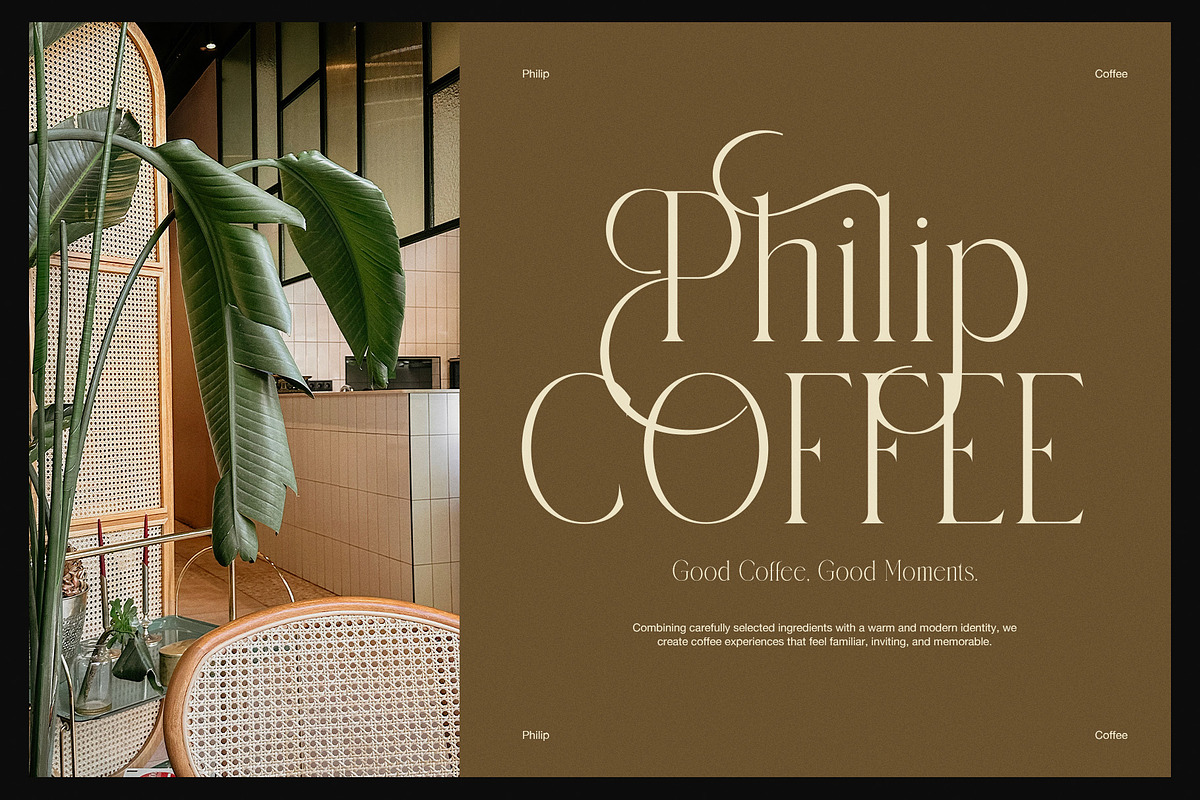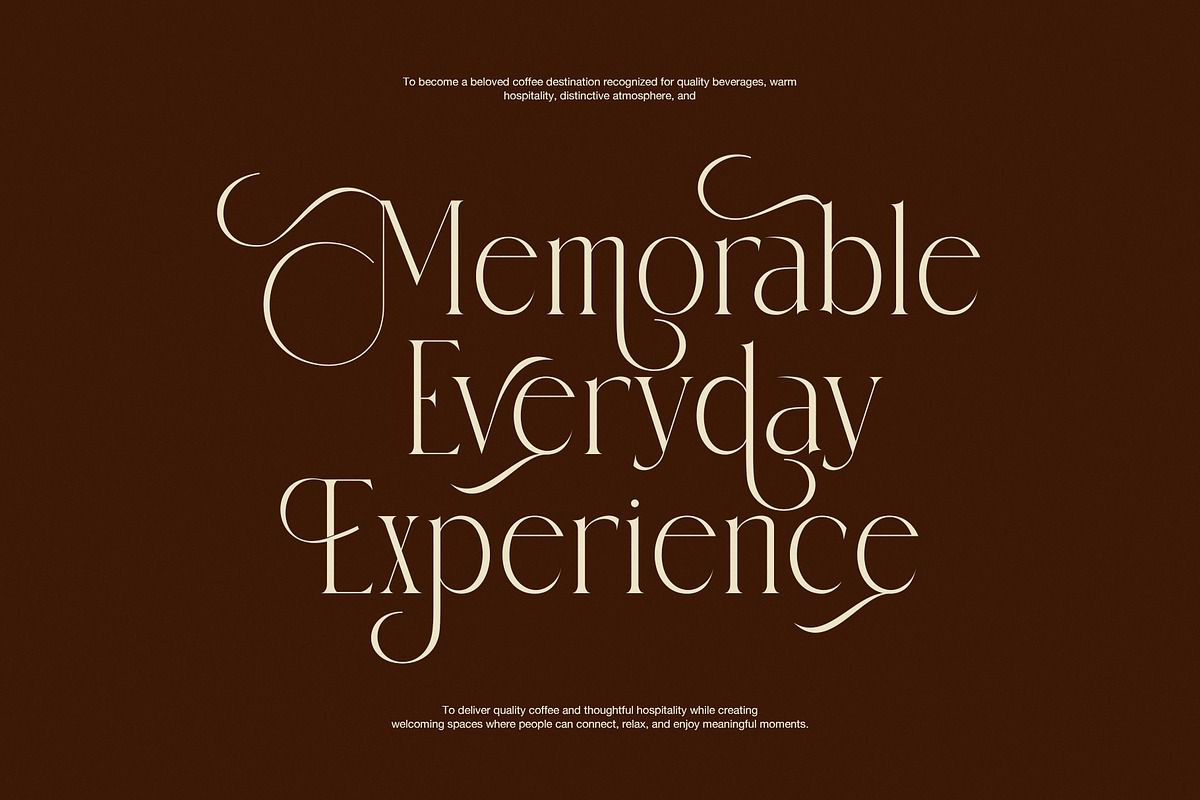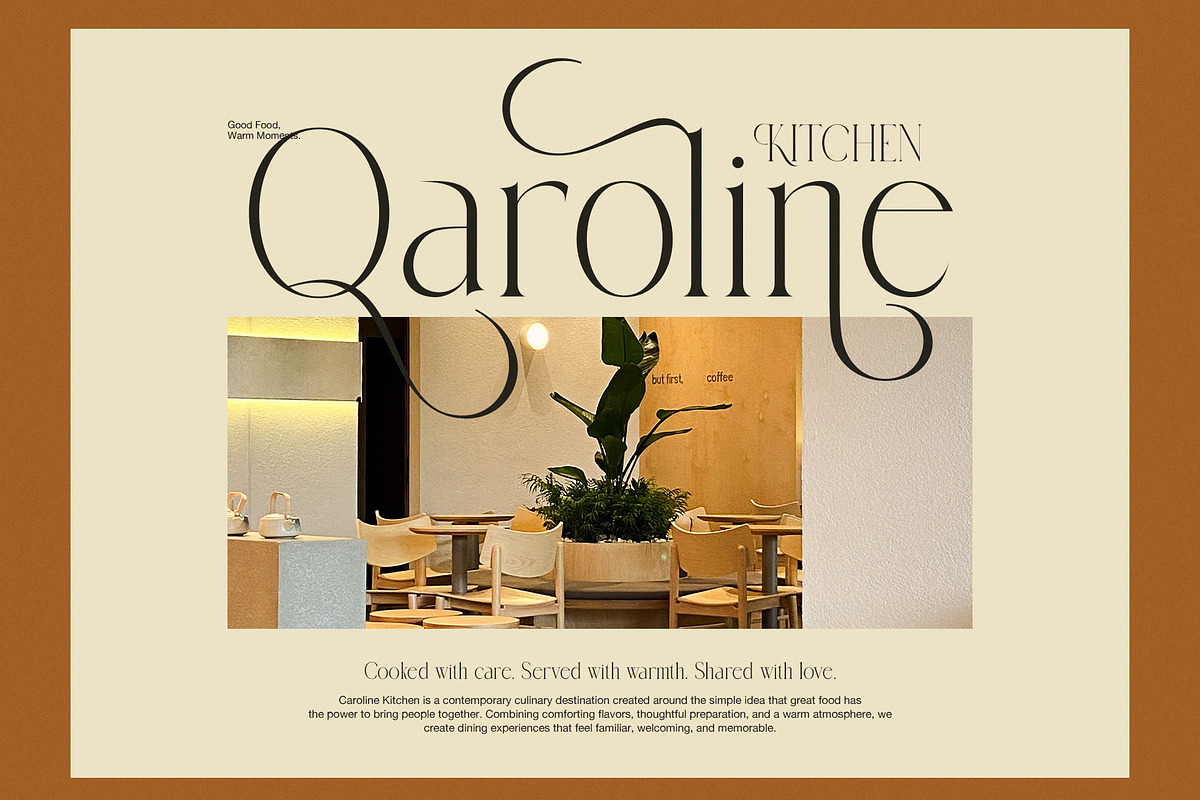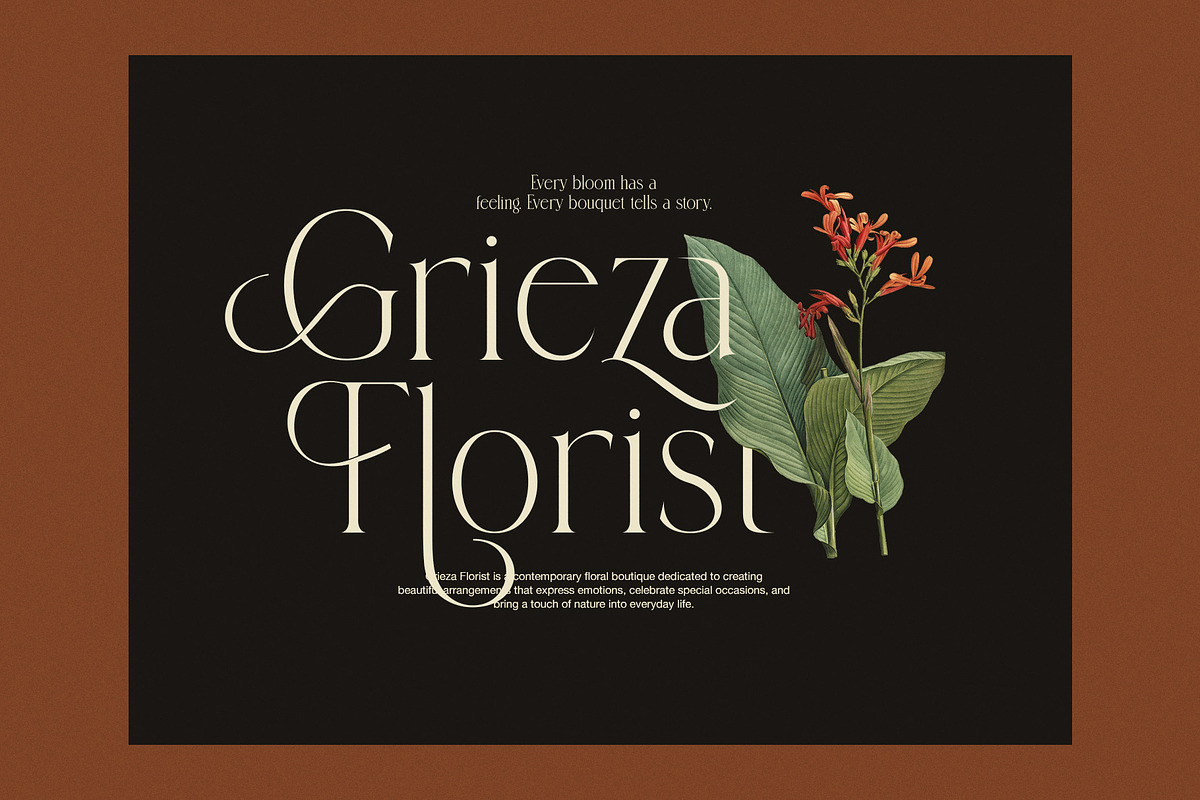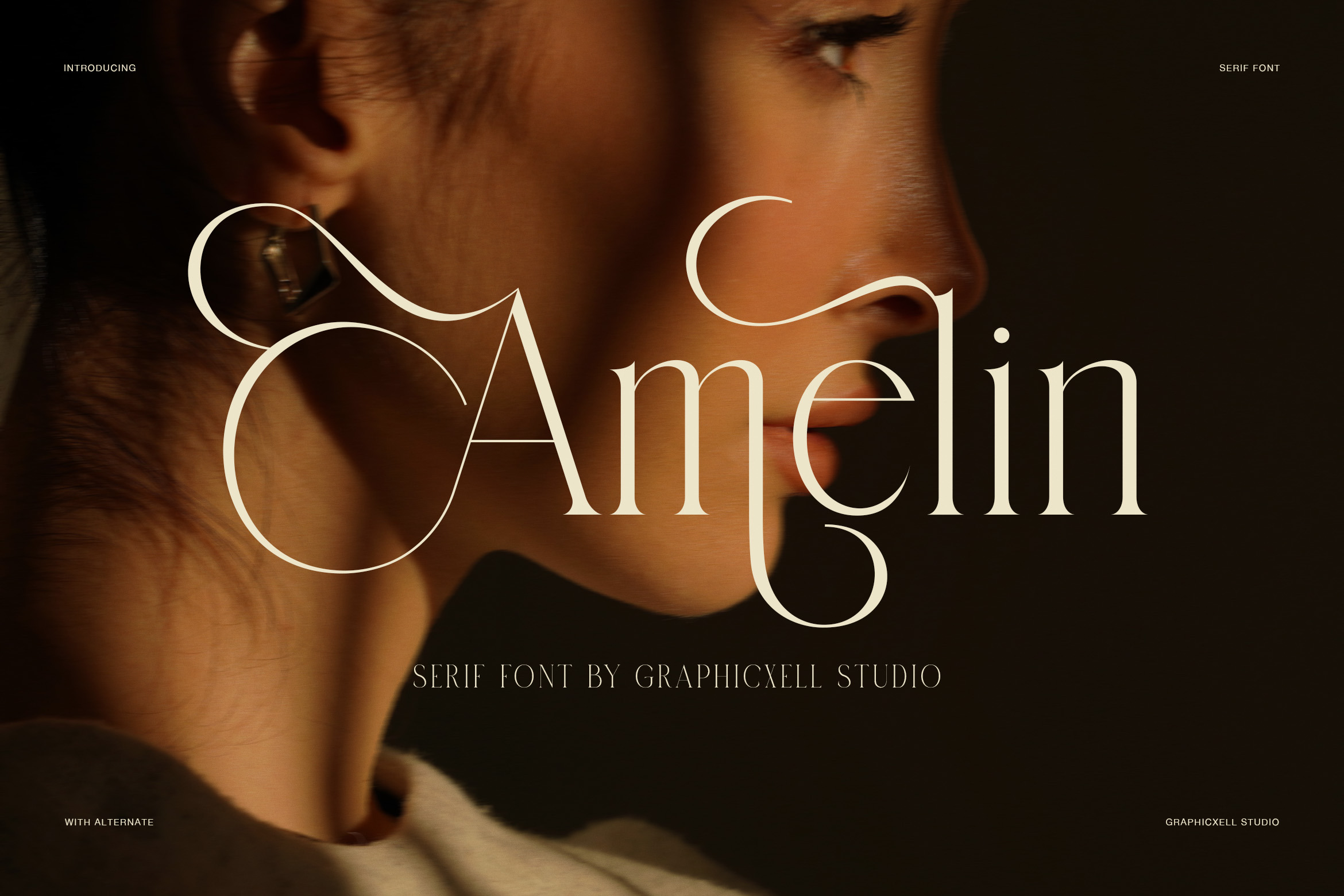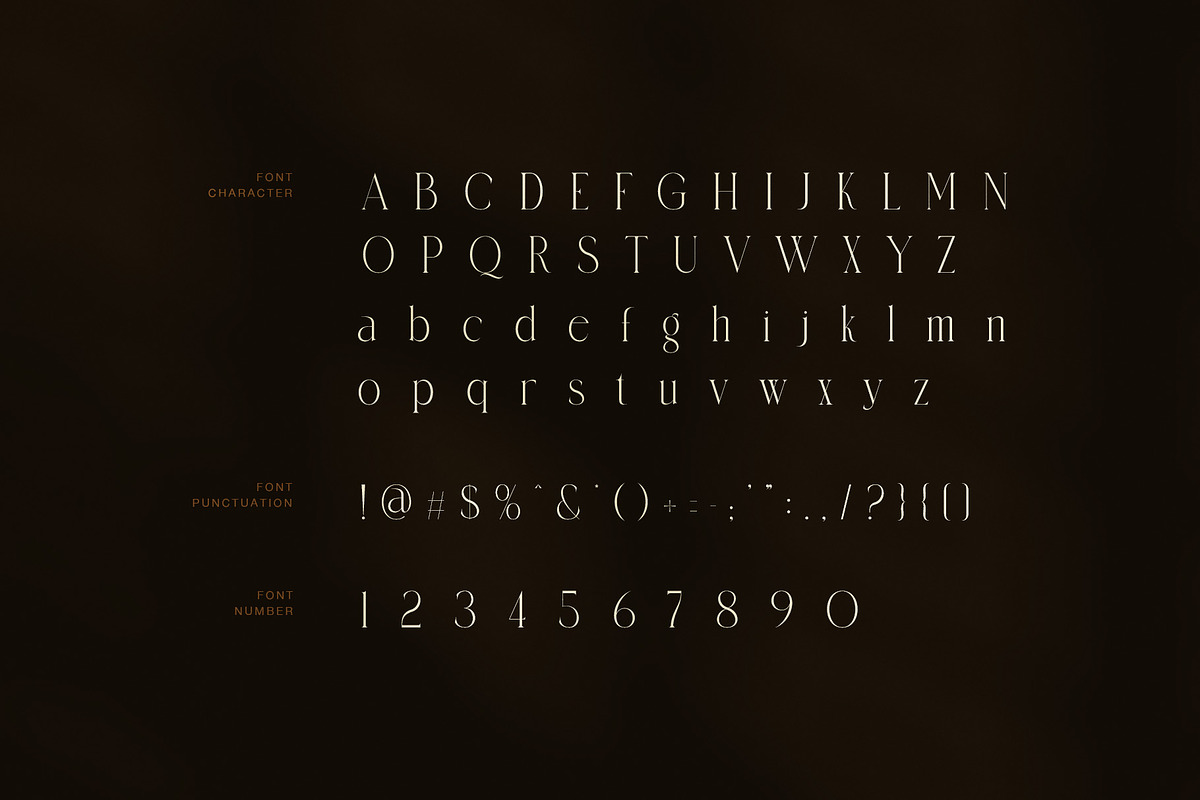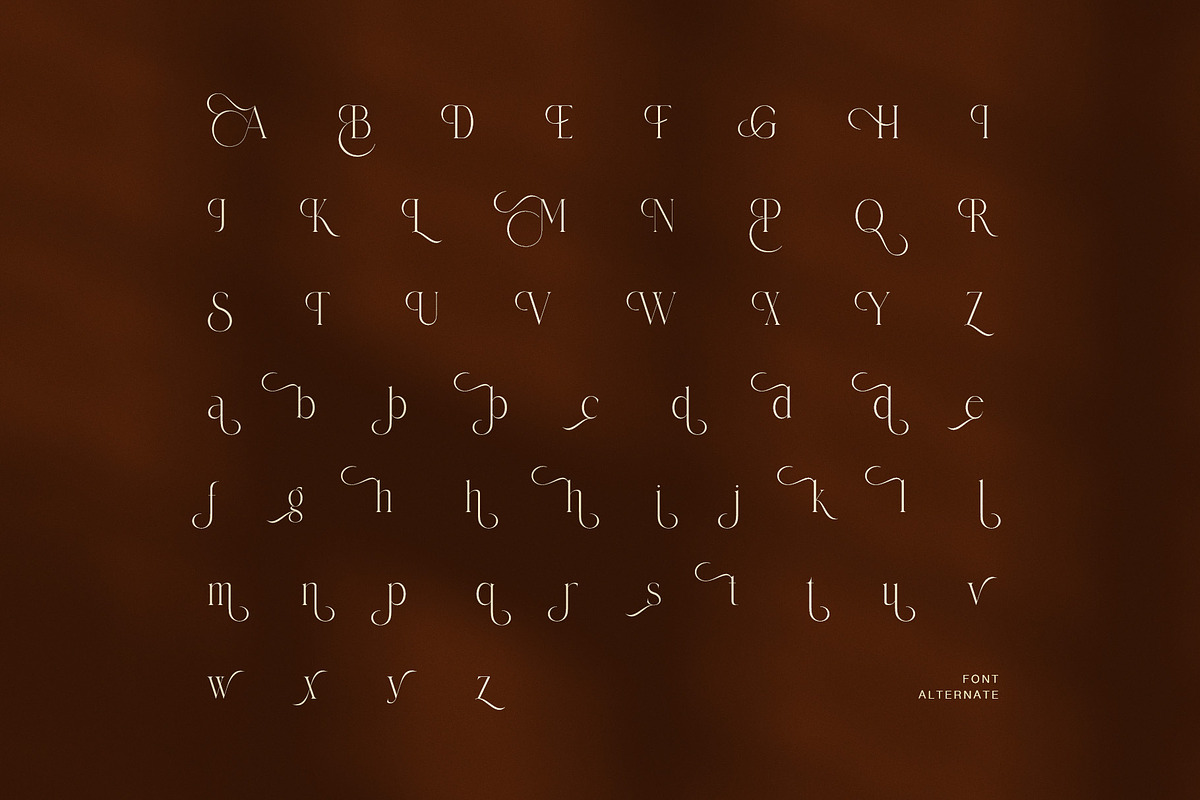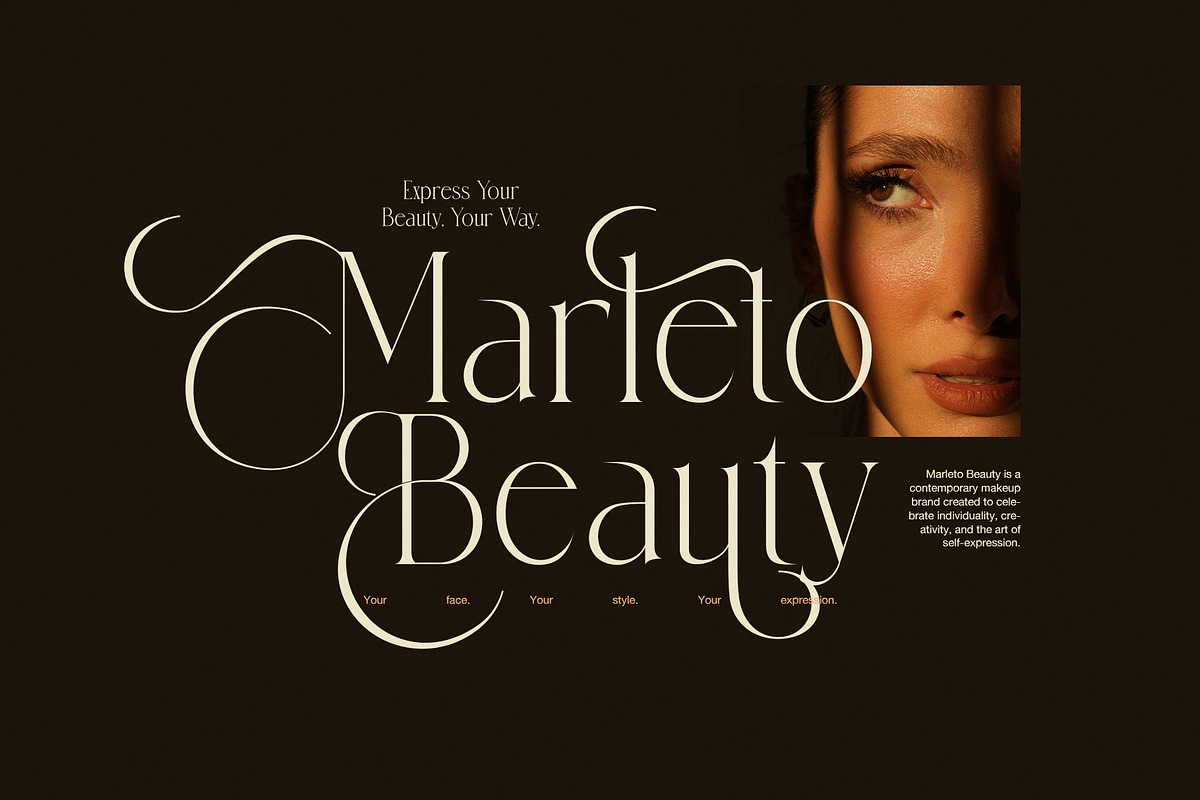
Amelin Elegant Serif Font
Amelin is an elegant high contrast serif font made for refined branding, beauty, fashion, and modern editorial design. Its slender proportions, fine hairlines, and graceful curves create a polished look with a soft feminine touch.
At first glance, Amelin feels delicate. However, its strong vertical stems give the typeface enough presence for large headlines and brand names. The contrast between thick and thin strokes also adds a clear fashion feel, making it a natural choice for premium visual identities.
Amelin includes a set of decorative alternate characters that bring extra movement to selected letters. These swashes can extend above, below, or around a word, creating a more expressive finish. As a result, designers can build unique logos, titles, and monograms without changing the core style.
The font is especially useful for projects that need elegance without a heavy or ornate look. Therefore, it fits beauty brands, fashion labels, floral studios, cafés, lifestyle brands, wedding stationery, and boutique businesses. In addition, its clean lowercase forms make short phrases feel graceful and modern.
Use Amelin for:
Fashion and beauty branding
Luxury logos and wordmarks
Editorial headlines and magazines
Wedding invitations and stationery
Floral and lifestyle branding
Café and boutique identities
Packaging and product labels
Social media campaigns and posters
The alternate glyphs are a key part of the font's personality. Meanwhile, the standard characters keep the design clean when a simpler approach is needed. This balance makes Amelin useful for both minimal layouts and expressive display typography.
Amelin also works well with photography. Its thin strokes create refined contrast against rich backgrounds, portraits, product images, and warm lifestyle scenes. Likewise, the decorative forms can frame a word or create a signature detail within a logo.
Whether you are creating a beauty campaign, fashion identity, café brand, or elegant editorial piece, Amelin adds a graceful visual voice. Its high contrast, slender forms, and decorative alternates help turn simple words into memorable display typography.